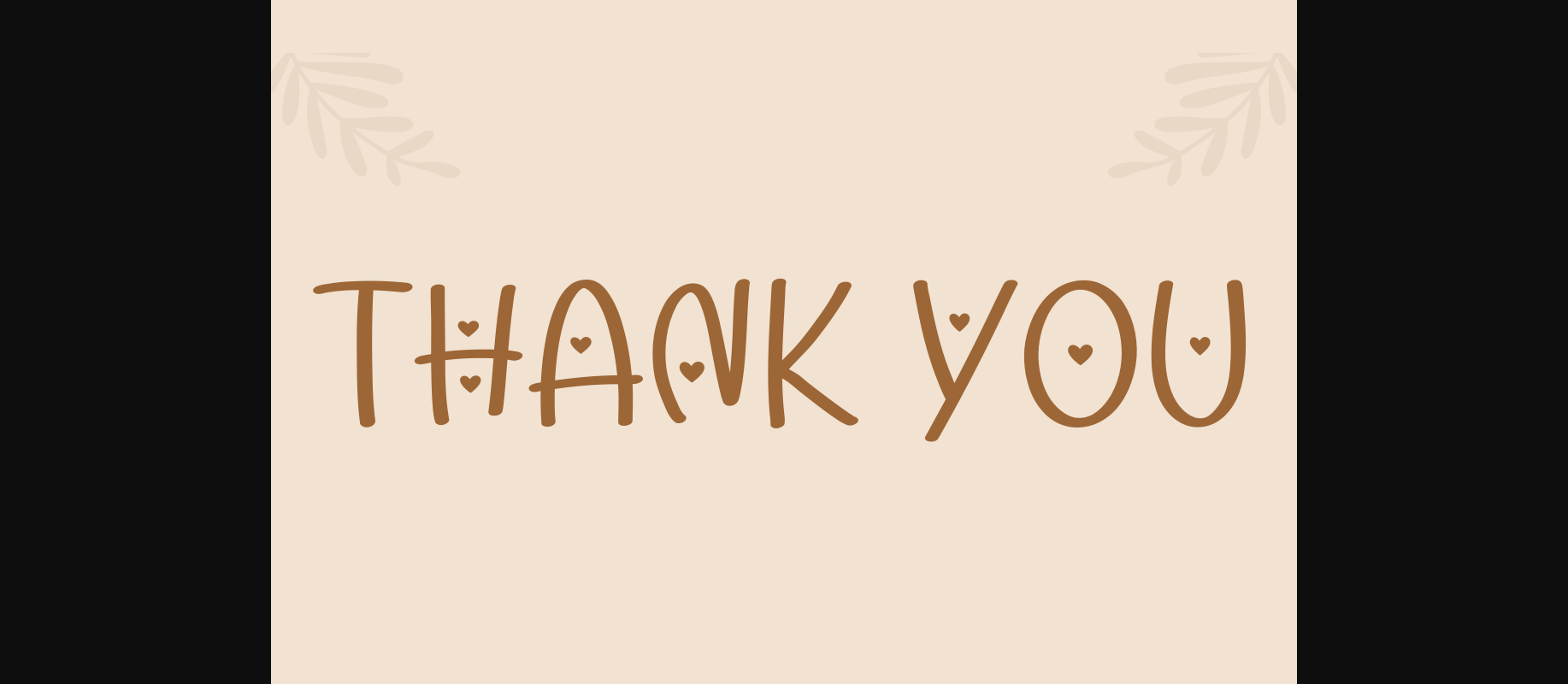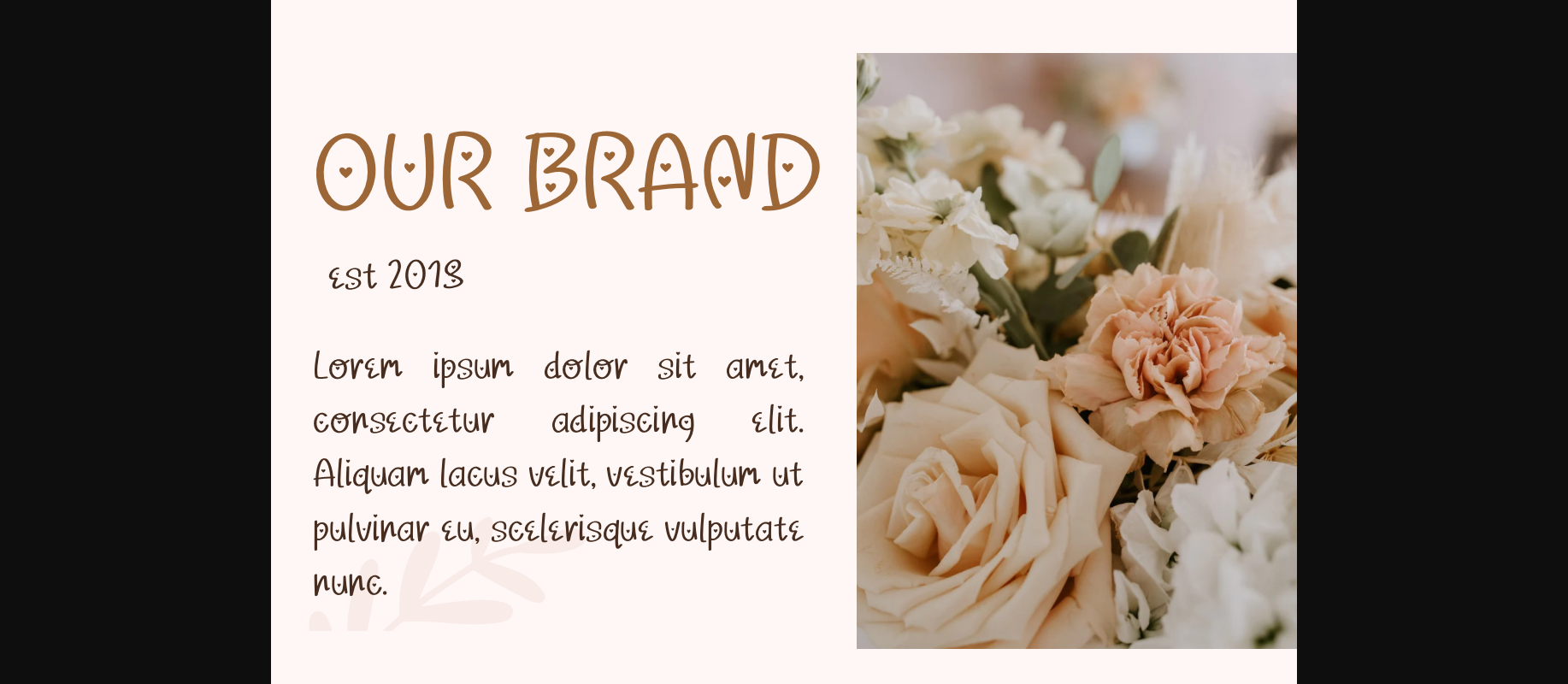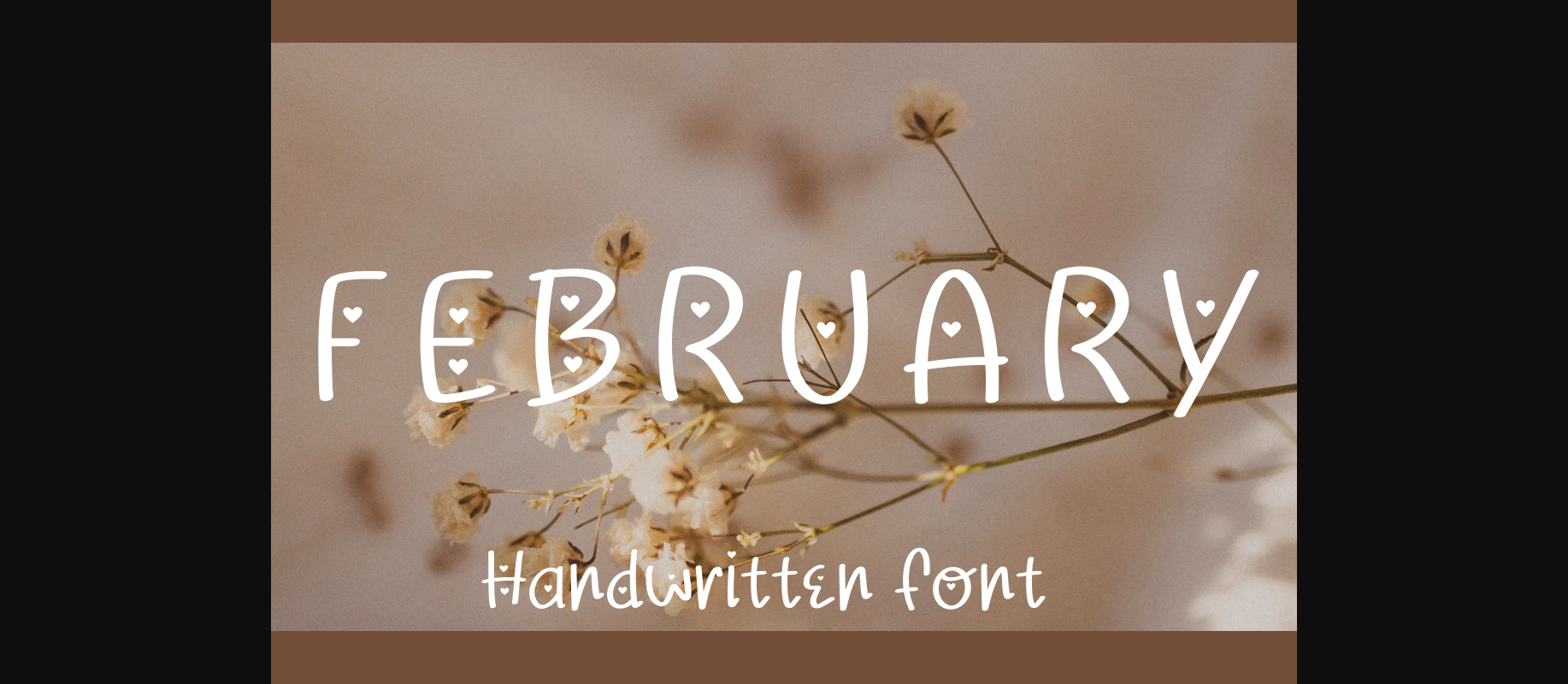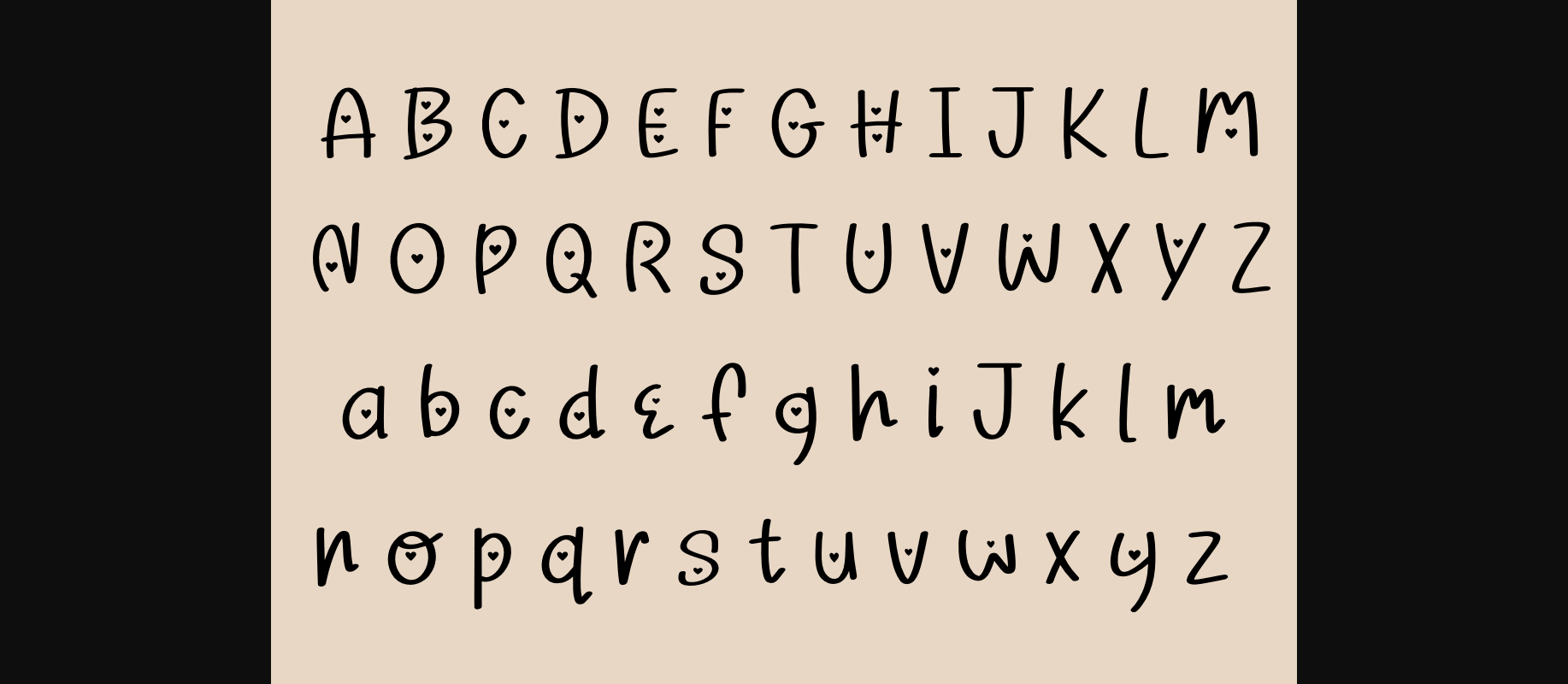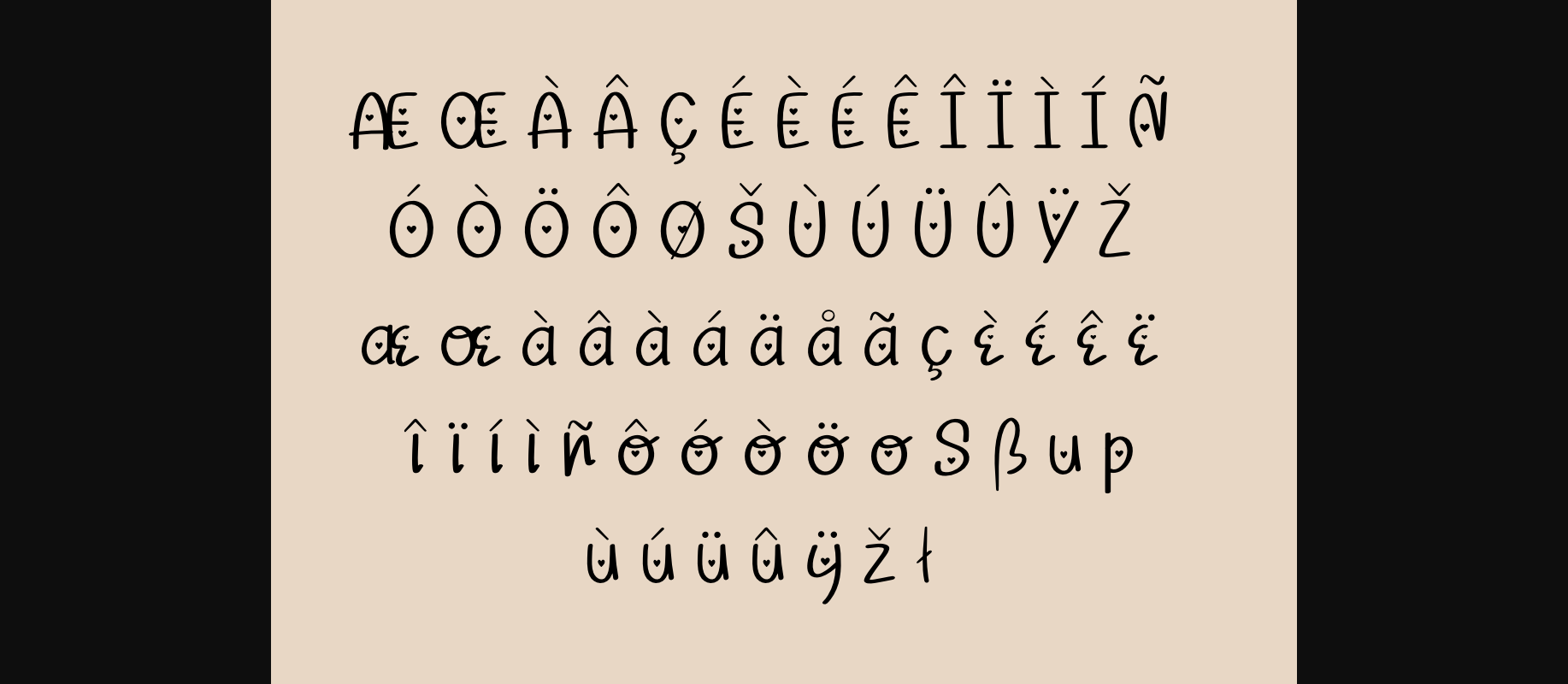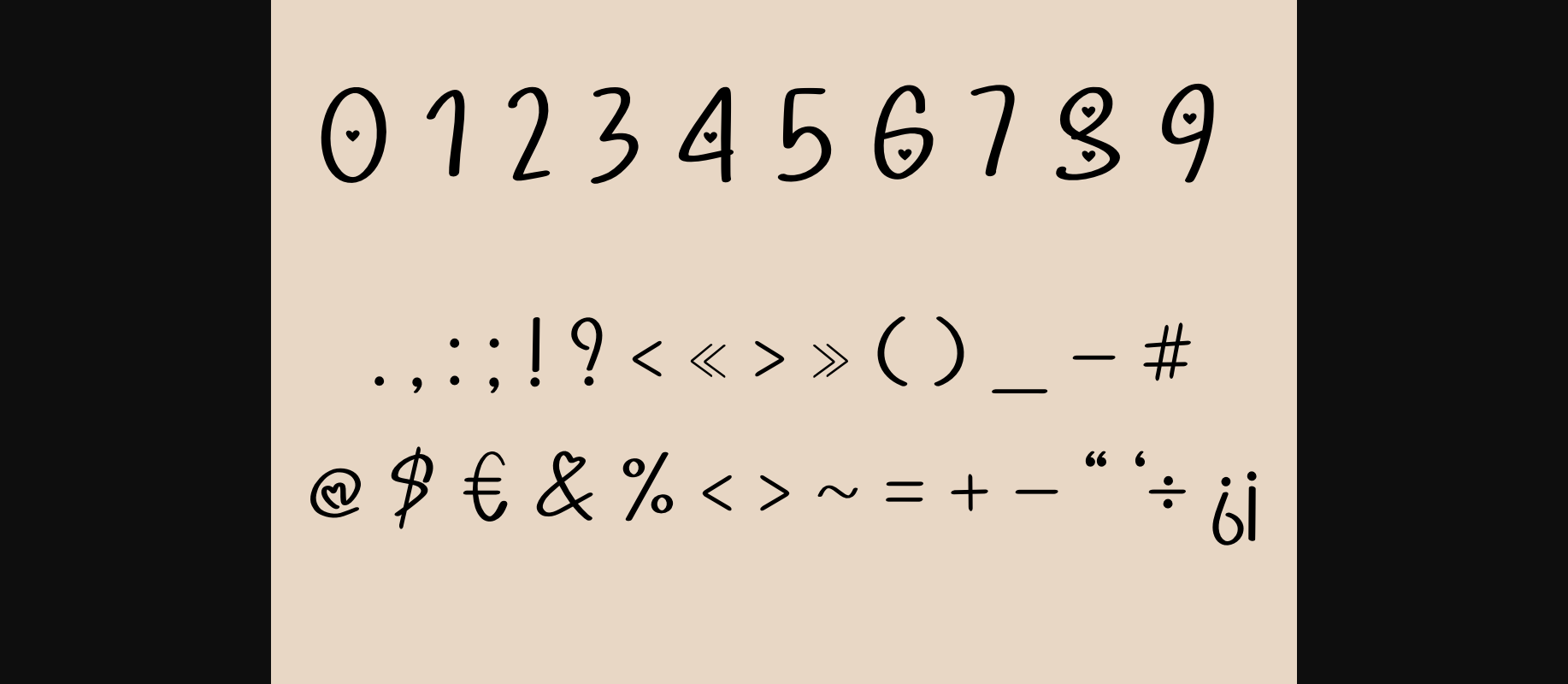
About February Font
February is a delightful decorative handwritten font that will warm your heart. With its whimsical flair, this font adds a touch of romance and playfulness to any project. What sets it apart is the adorable hearts, sprinkling love and joy throughout your design. Whether you’re creating heartfelt invitations, romantic greeting cards, or lovely posters, February brings an extra dose of sweetness to your messages.